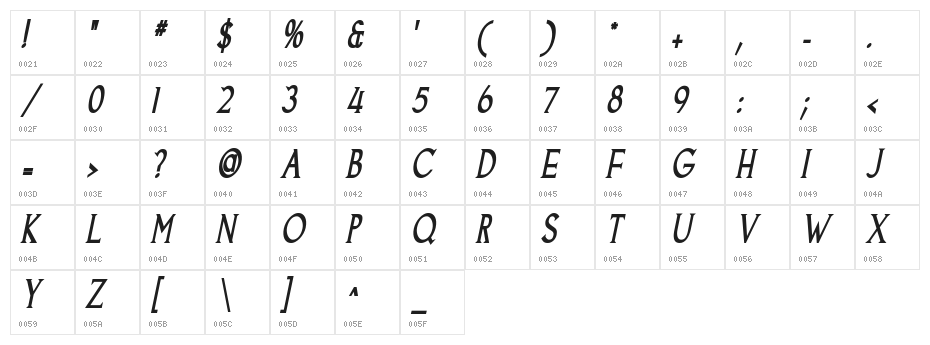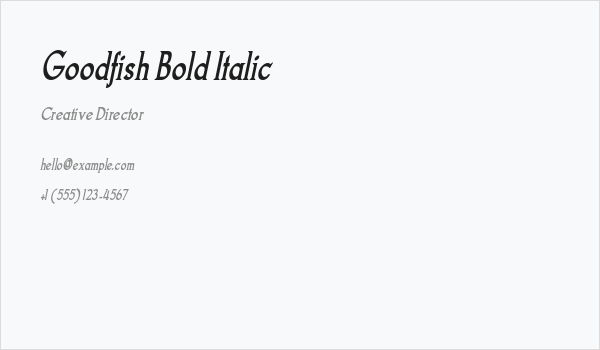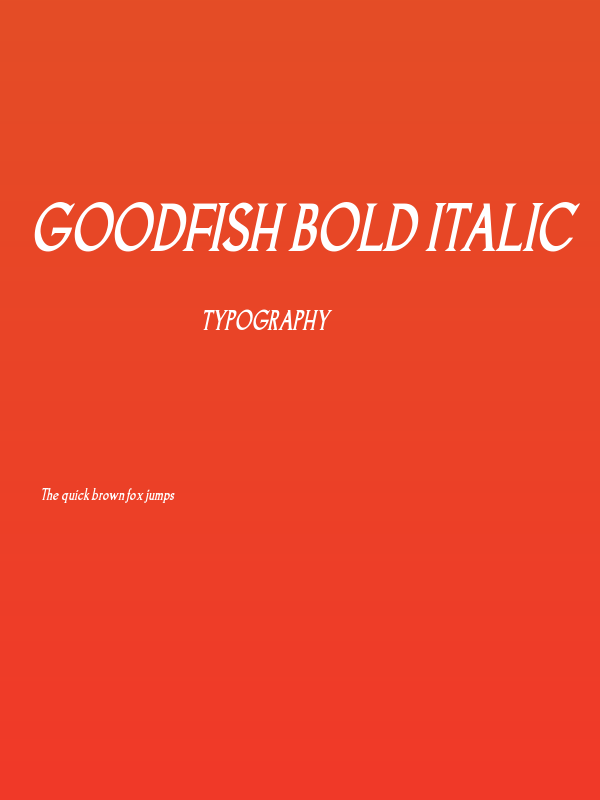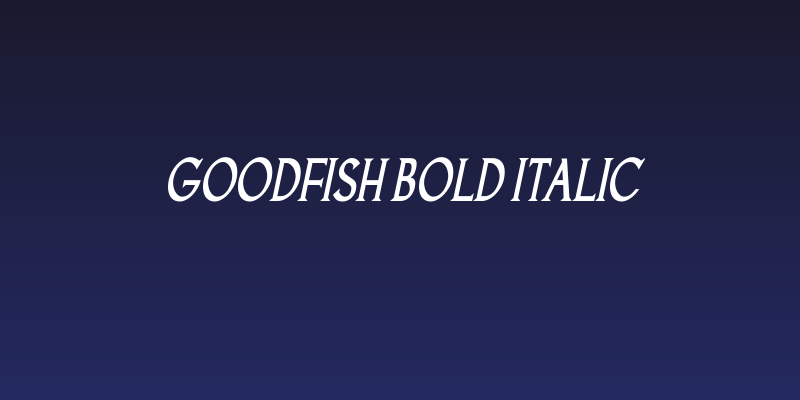
Goodfish Bold Italic Font
Goodfish Bold Italic Description
This font exhibits a dynamic and elegant style, characterized by its bold and italicized form. The letters are slightly slanted, giving a sense of movement and sophistication. The strokes are thick, providing a strong visual impact, while the serifs add a touch of classic elegance. The uppercase letters are tall and commanding, while the lowercase letters maintain a consistent flow. Numbers are clear and distinct, ensuring readability. Special characters are well-integrated, maintaining the overall aesthetic. This font is suitable for projects that require a bold statement with a touch of elegance.